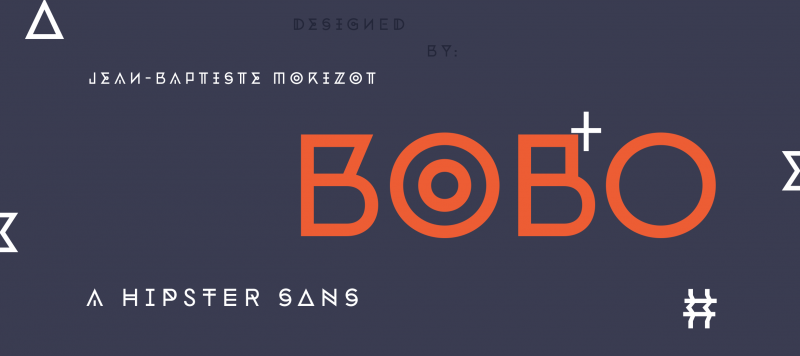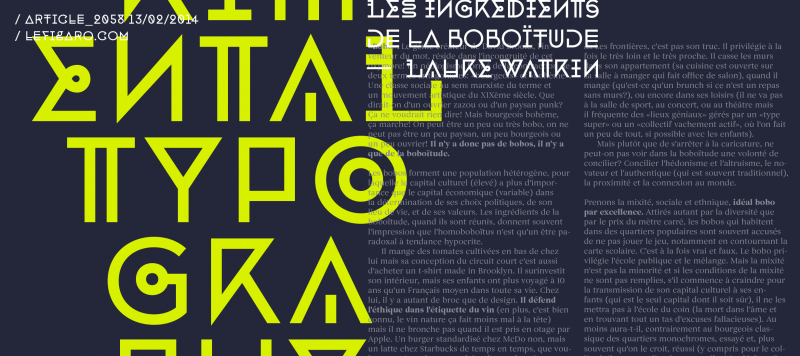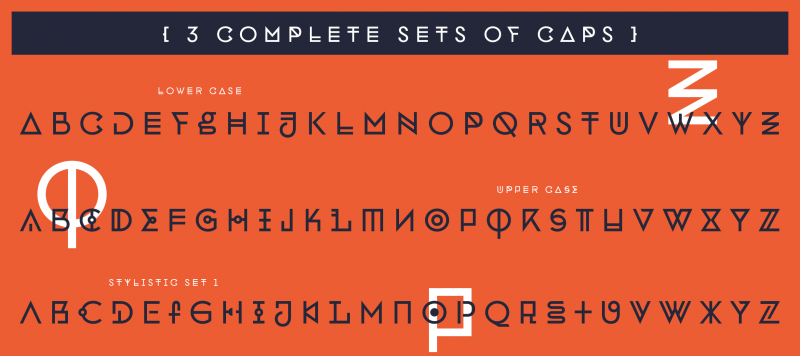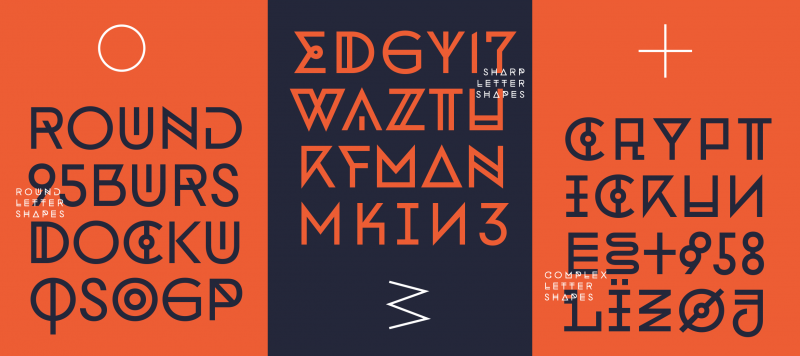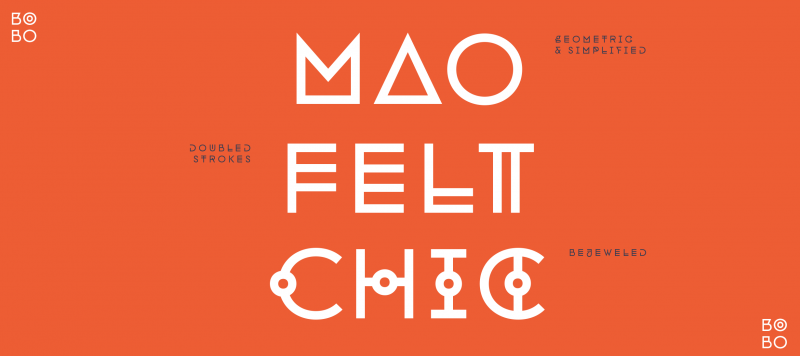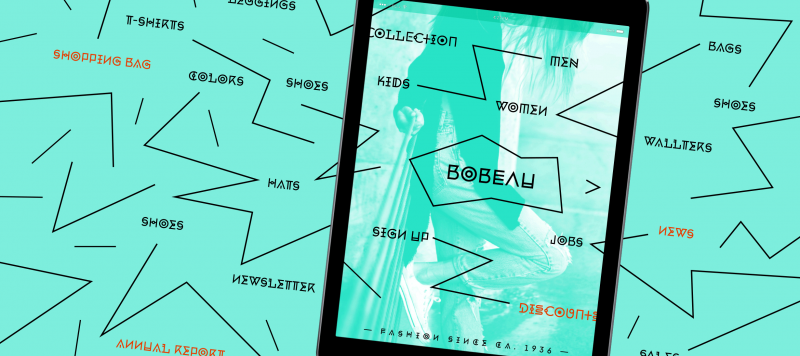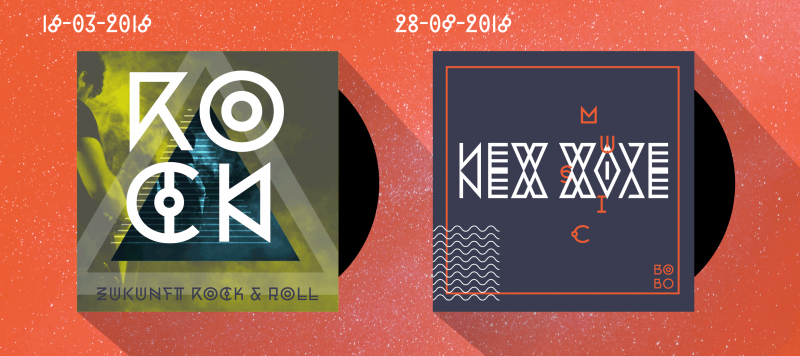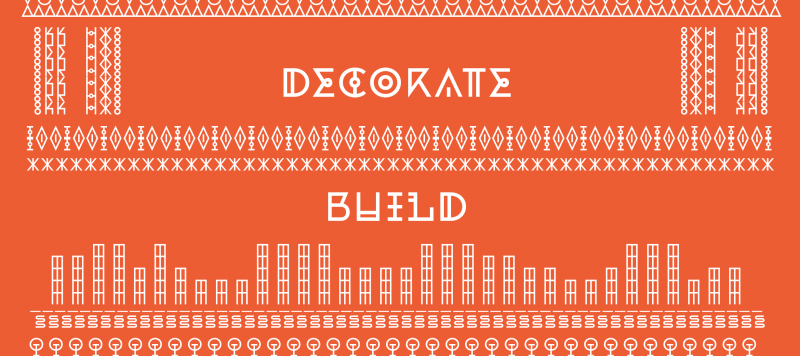
Bobo is a great hipster sans. It is caps-only, but it contains a lot of variety. Don’t miss its Stylistic Set feature, which contains a completely new set of capital letters, their accented variants, and an even more dynamic range of numerals (0–9). Some of Bobo’s letterforms have strokes that have been doubled; others are missing typical elements. Repetition is a key feature of the design. Some are unicase-looking, while others are compressed. Other letterforms are mirrored. Bobo even included several “jewelled” letterforms, with circles in their centers – reminiscent of medieval illuminated manuscript lettering and 18th-century ornamented typefaces. The typeface’s .notdef is a skull – a particularly wicked-looking one, too! The name Bobo stands for “bourgeois Bohemian.”
Family Name Bobo
Designer(s) Jean-Baptiste Morizot
Classification Sans, Display